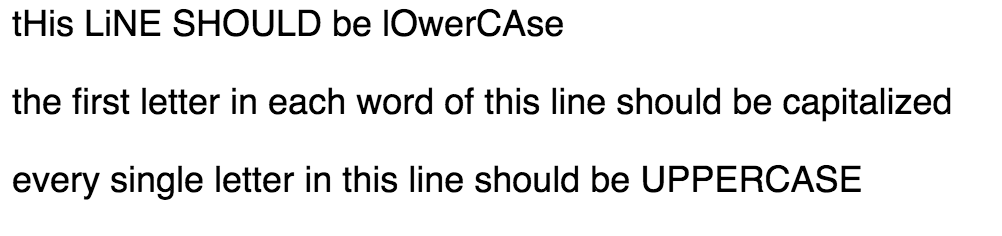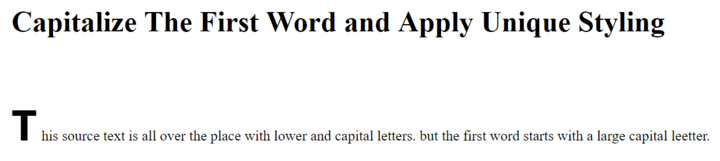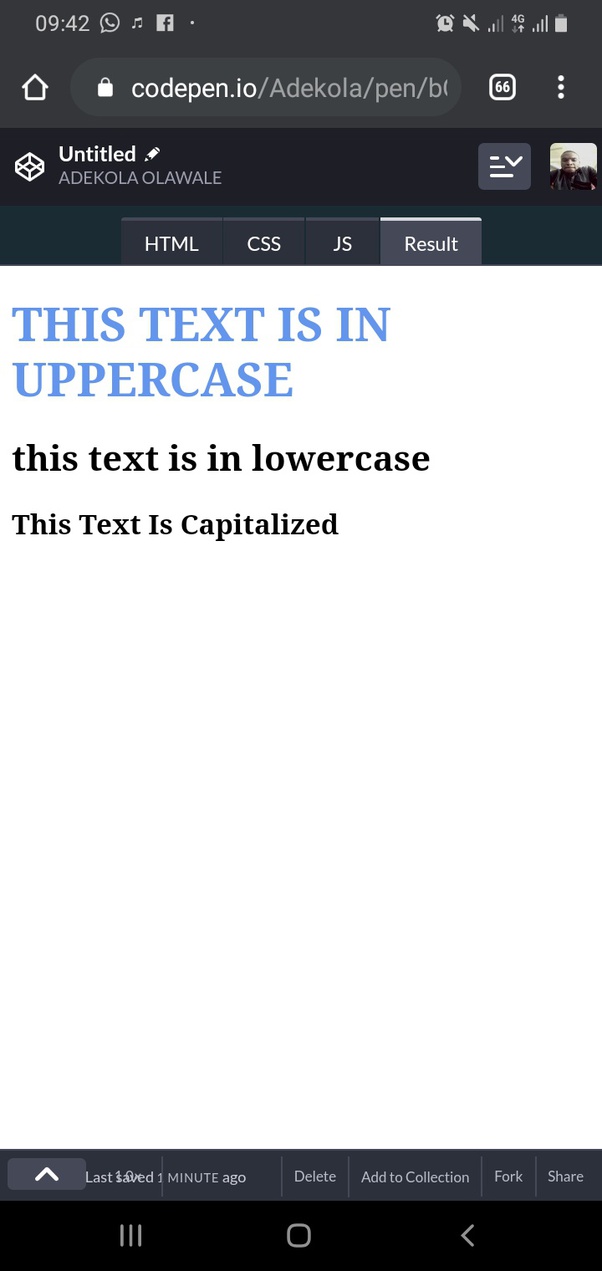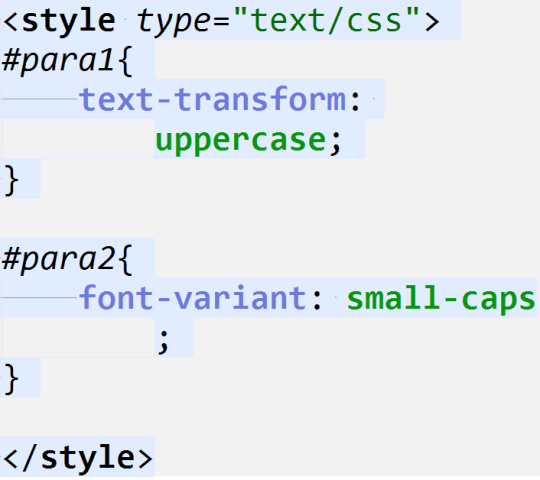
It will not capitalize the first letter after the number. This is the paragraph to show uppercase text.
List Of How To Change Font To Uppercase In Css Free Download, Internet explorer 9 was the closest to the css 2 definition,. I want my text to turn to uppercase when my font is bold.
Makes all of the letters in the selected text lowercase. Makes all of the letters in the selected text uppercase or all caps. It will not change the case of the rest of the letters in a word. Changing the whole contents is not possible on different pages and the best solution is the transform the texts from css controls.
Manipulate Capitalization Using CSS's TextTransform CSS Reset For example, if you capitalize a word that’s in all capital letters already, the other letters in the word won’t switch to lowercase.
Capitalize only affects the first letters of words. I know how to make your font bold in css but this one is different. It will not capitalize the first letter after the number. For example, if you capitalize a word that’s in all capital letters already, the other letters in the word won’t switch to lowercase.
It will not change the case of the rest of the letters in a word. I know how to make your font bold in css but this one is different. I have many posts in my blog with the artist names in bold. The above codes are the basic syntax for initialized the fonts property with values in the css style sheet. Use CSS texttransform to Manipulate Text Casing.
They create a sense of formality and elegance. For example, if you capitalize a word that’s in all capital letters already, the other letters in the word won’t switch to lowercase. } this is a text this is a text. They create a modern and minimalistic look. css Different letter size when using uppercase letters Stack Overflow.
It will not capitalize the first letter after the number. This is nice when your text includes an acronym or abbreviation that shouldn’t include. Note that this makes use of the h1 tag and the css text. If we apply the capitalize property on a word that already has capital letters, then the letters of that word. Making Uppercase And Lowercase, Line Height CSS & CSS On Font Bangla.
} this is a text this is a text. I need this for my blog. None | capitalize | uppercase | lowercase | initial | inherit; One of these is to change make use of uppercase, lowercase, and capitalization. How is text formatting done through CSS with an appropriate example.
We used mainly in the numeric supported values, either the keyword type of values or predefined values in the css codes. As you will see in the following code example, it’s straightforward. It transforms the first character of each word to uppercase. It will not change the case of the rest of the letters in a word. Text Css Uppercase.
Internet explorer 9 was the closest to the css 2 definition,. I also want to change font size when the font is bold. For capitalizing all letters by using the css, you need to use the ‘text transform’ property. Makes all of the letters in the selected text lowercase. 31 Make Label Elements Uppercase Css Labels Database 2020.
You can also use this property to set the contents of a text element to lowercase. It only affects the first letters of the words instead of changing the rest of the letters in the word. How to use css text transform. Note that this makes use of the h1 tag and the css text. CSS Make only first letter uppercase (capital letter), use first.
This is the paragraph to show uppercase text. Serif fonts have a small stroke at the edges of each letter. Use keyup () method to trigger the keyup event when user releases the key from keyboard. } with this, everything that has the h1 tag applied, will appear in all caps. Lab6 font css html.
How to use css text transform. One of these is to change make use of uppercase, lowercase, and capitalization. Transforms all characters to lowercase. Using these types of supported values, we can call it a parameter or set of arguments used in the font style sheet. Use CSS texttransform to Manipulate Text Casing.
You can also use this property to set the contents of a text element to lowercase. I also want to change font size when the font is bold. They create a sense of formality and elegance. } this is a text this is a text.
One Of These Is To Change Make Use Of Uppercase, Lowercase, And Capitalization.
This property sets how text is capitalized on a web page. It is s used to control the capitalization of the text. Capitalize only affects the first letters of words. It only affects the first letters of the words instead of changing the rest of the letters in the word.